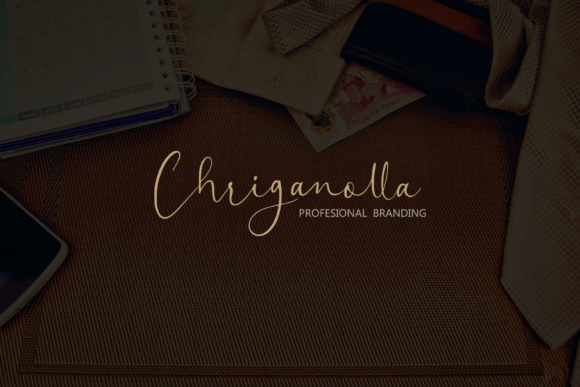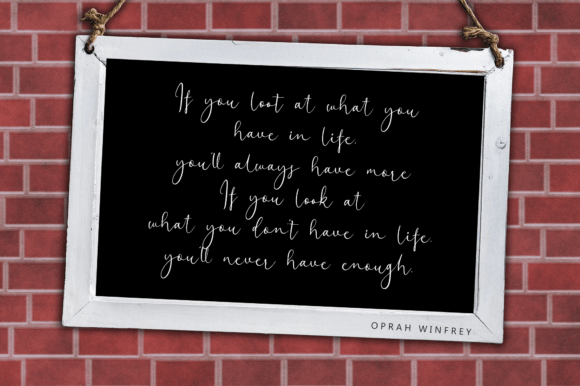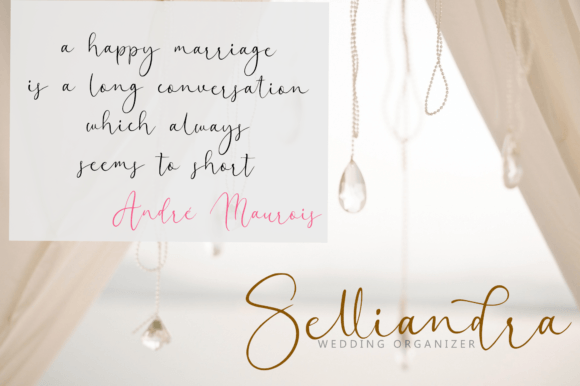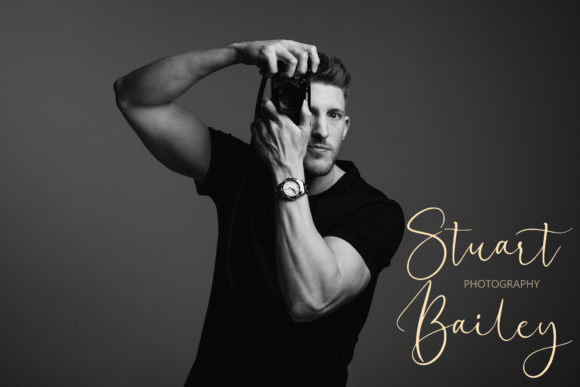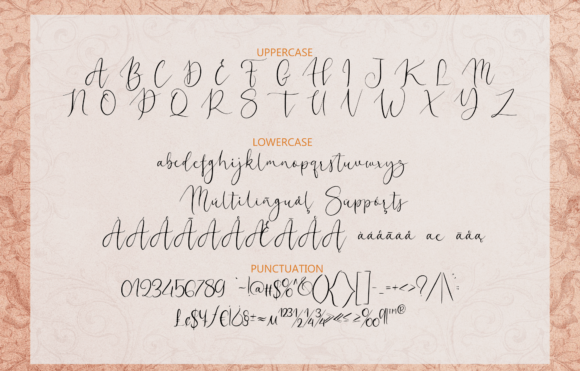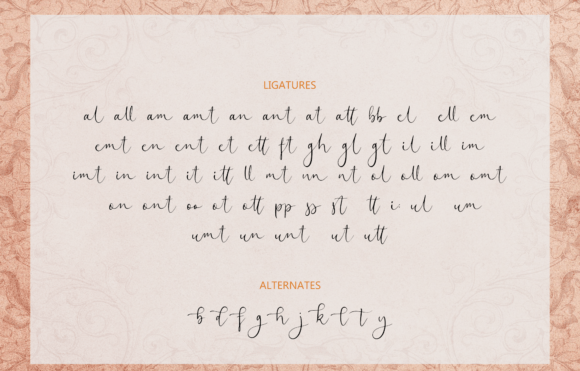
Adding a Touch of Elegance to Your Designs
There’s nothing quite like the feeling of finally finding the perfect font for your project. You’ve been browsing through countless options, and just as you’re about to give up, you stumble upon it – the one that brings your design to life. For many of us, this moment is the culmination of hours of searching, and it’s a feeling that’s hard to replicate.
Meet Bellegance Font, the sophisticated handwritten font that will elevate your designs to new heights. With its flowing curves and modern flair, Bellegance is perfect for adding a refined and special touch to your invitations, branding, and stylish editorial projects. Whether you’re a seasoned designer or just starting out, this font is a valuable addition to your toolkit.
By incorporating Bellegance Font into your designs, you’ll be able to convey a sense of timeless beauty and charm that will leave a lasting impression on your audience. Its stylish character set and versatility make it an ideal choice for a wide range of projects, from wedding invitations to luxury branding.
Bellegance Font Key Features
- Font Family: Bellegance is a beautiful, elegant script font, ideal for invitations, wedding stationery, and other creative projects.
- Character Count: Bellegance includes 800+ glyphs, including Latin, Cyrillic, and Greek alphabets, making it a versatile font for multilingual projects.
- Unique Characteristics: Bellegance features beautiful, flowing connections between letters, making it perfect for creating elegant, handwritten-style designs.
Bellegance Font Review
I recently had the chance to work with the Bellegance Font, and I must say it’s a beautiful addition to any design project ✨. The elegant curves and refined lines give it a sophisticated look that’s perfect for luxury brands or high-end products. The font also comes in a range of weights, from light to bold, which makes it versatile and easy to use.
One of the things I like most about Bellegance is its legibility. Even at small sizes, the font remains clear and easy to read, making it perfect for body text or headlines ✨. Additionally, the font’s modern feel makes it a great choice for contemporary designs.
While Bellegance is a great font, it does have some limitations ⚠️. One of the main issues is that it can feel a bit too ornate for some designs. If you’re going for a more minimalist look, Bellegance might not be the best choice. Additionally, the font’s elegance can sometimes feel overused, so it’s essential to use it in moderation.
Overall, I’m a big fan of Bellegance Font. It’s a beautiful, elegant font that’s perfect for high-end designs. While it may have some limitations, its strengths far outweigh its weaknesses. With careful use, Bellegance can add a touch of sophistication to any project ✨.
Design Considerations
- Use Bellegance for luxury brands or high-end products.
- Avoid using Bellegance for minimalist designs.
- Use Bellegance in moderation to avoid overusing its elegant feel.
- Experiment with different weights to find the perfect fit for your design.
Bellegance Font: A Practical Application Guide
Tips for Getting the Most Out of Bellegance Font
Bellegance font is perfect for creating elegant and sophisticated designs. Here are some tips to get the most out of it: